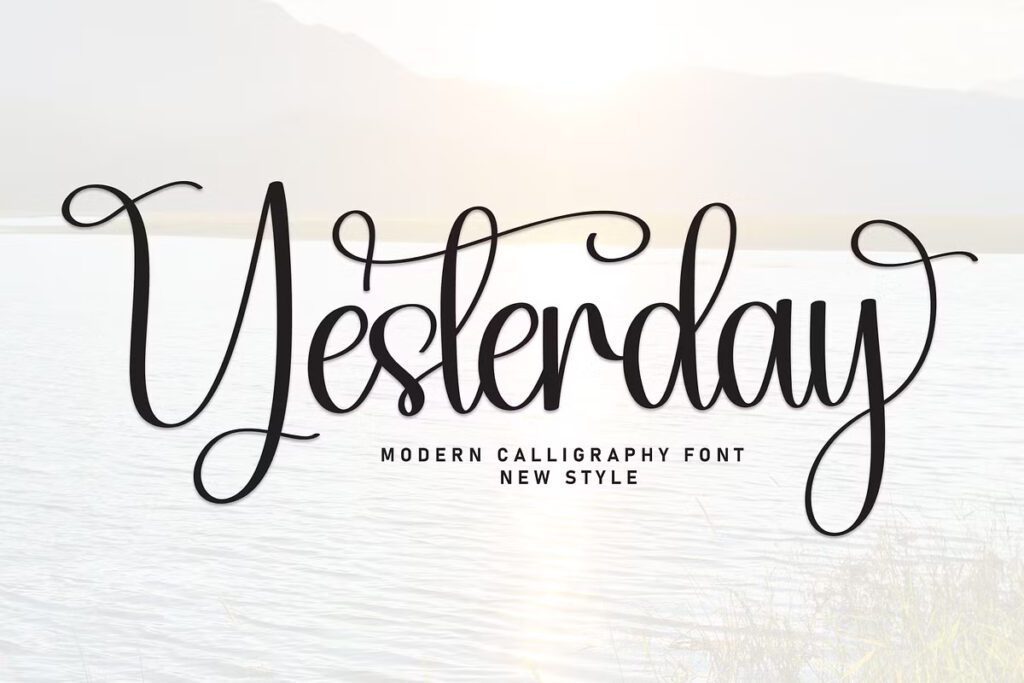
Blog Post: Elevate Your Designs with Yesterday Script Font
For creative professionals and designers, the right font can transform any project from ordinary to extraordinary. Introducing Yesterday Script Font—a modern, elegant typeface that brings a touch of sophistication and creativity to every design. Whether you’re working on formal invitations or casual social media graphics, this font adds a luxurious, stylish edge to your work.
Why Choose Yesterday Script Font?
Yesterday Script Font is a popular and professional script font that blends beauty with versatility. Its elegant strokes and modern style make it the perfect choice for a wide range of creative projects, including:
Invitation Cards: Whether it’s for weddings, parties, or formal events, this font adds a refined and classy touch to your invites.
Logos & Branding: Make your brand stand out with a unique, elegant logo that grabs attention instantly.
Social Media & Website Graphics: Add flair to your social media banners, posts, and website design with stunning script typography.
Advertisements & Brochures: Use this typeface to create eye-catching advertisements that leave a lasting impression.
Product Packaging & Leather Goods: Elevate your product design with a font that exudes sophistication and style.
This font is also perfect for letterheads, banners, brochures, and many more creative uses. Its versatility means it can be applied to both formal and informal projects, giving your designs a luxurious, high-end feel.
Complete Set of Features for Professional Use
Yesterday Script Font comes with a full set of beautiful uppercase and lowercase letters, numbers, a variety of punctuation marks, and ligatures. Its realistic style is enhanced by start and end strokes on lowercase letters, providing a natural, handwritten look. Whether you’re creating a logo or crafting invitations, the font’s elegant curves and creative strokes will add a personalized touch to your design.
If you’re looking to give your projects a unique, modern, and elegant edge, Yesterday Script Font is the perfect solution. Its versatility and creative style make it ideal for any design project that requires a luxurious and sophisticated touch.